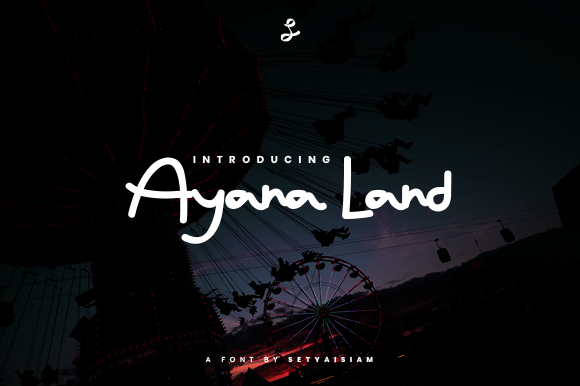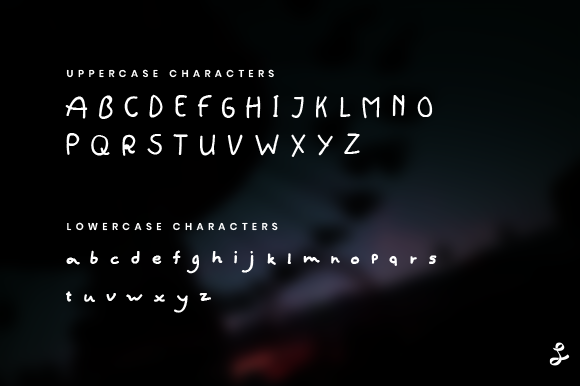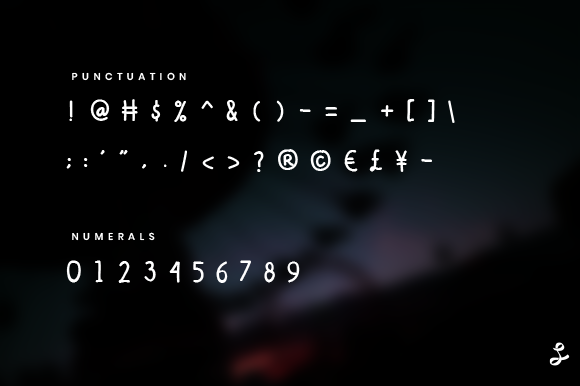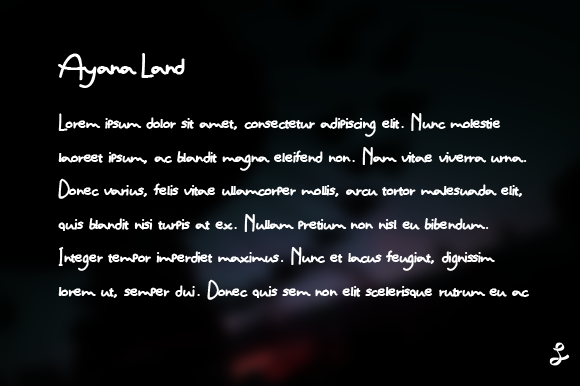
Ayana Land Font
About Ayana Land Font
Ayana Land is a casual script font. It has a friendly feel that will appeal to a wide range of crafty ideas, from letterheads and titles, to stationery.